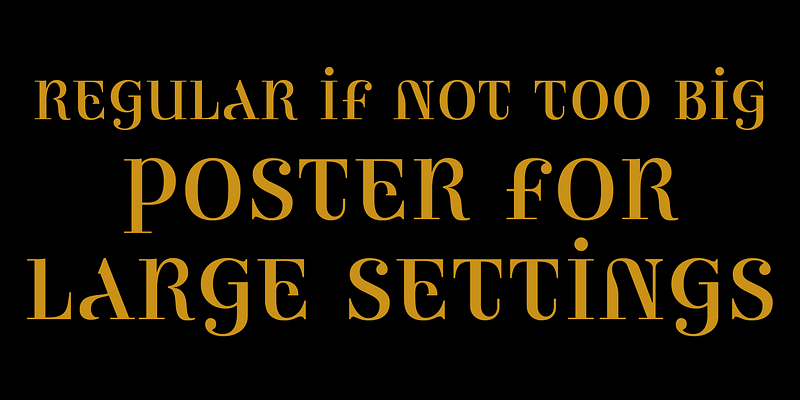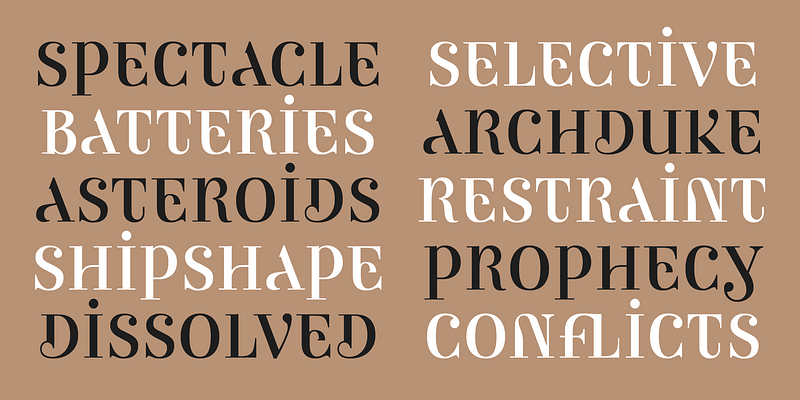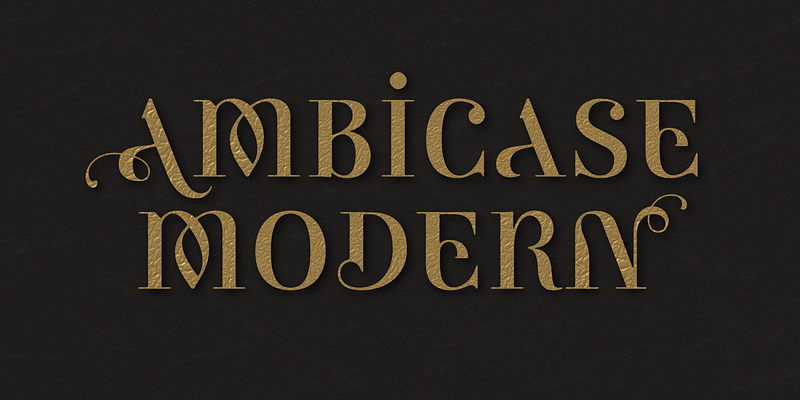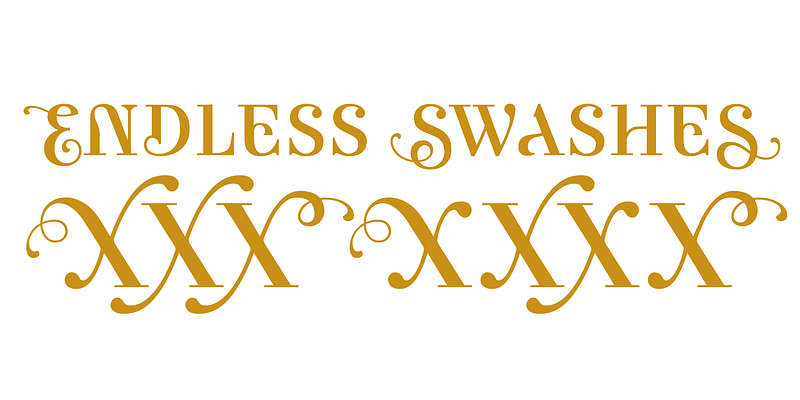
Uppercase? Lowercase? Why not both?! Ambicase is an award-winning conceptual display type that combines traditional upper- and lowercase forms within the same letters. Somehow both familiar and alien, the forms of the Ambicase typefaces toy with inherited assumptions about letterforms.